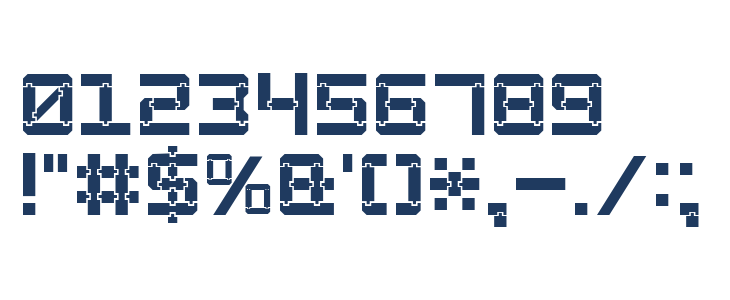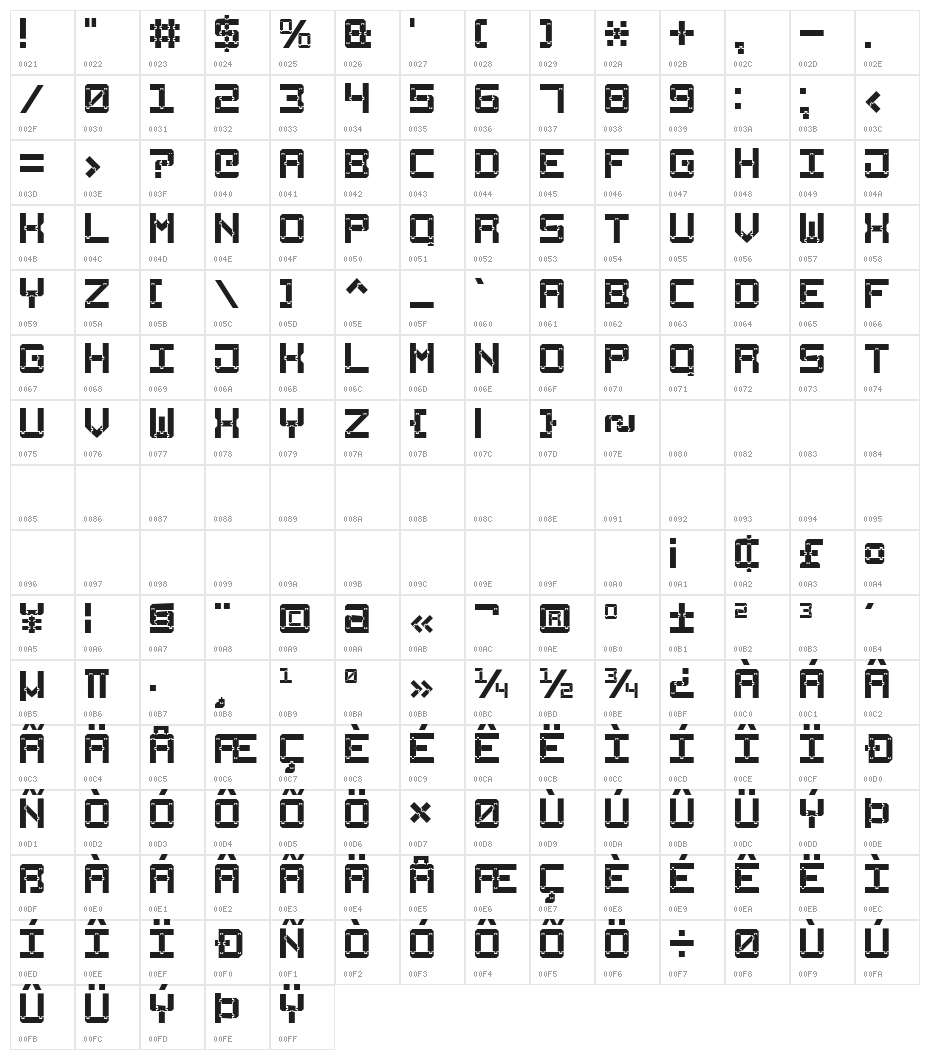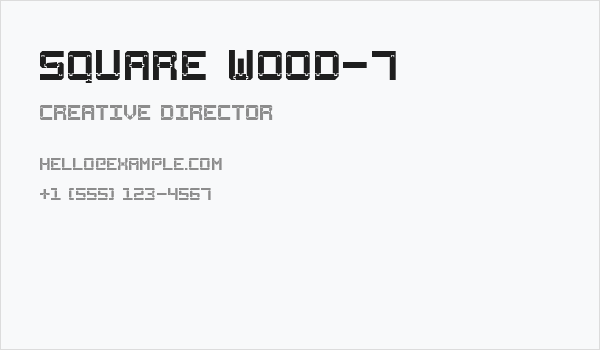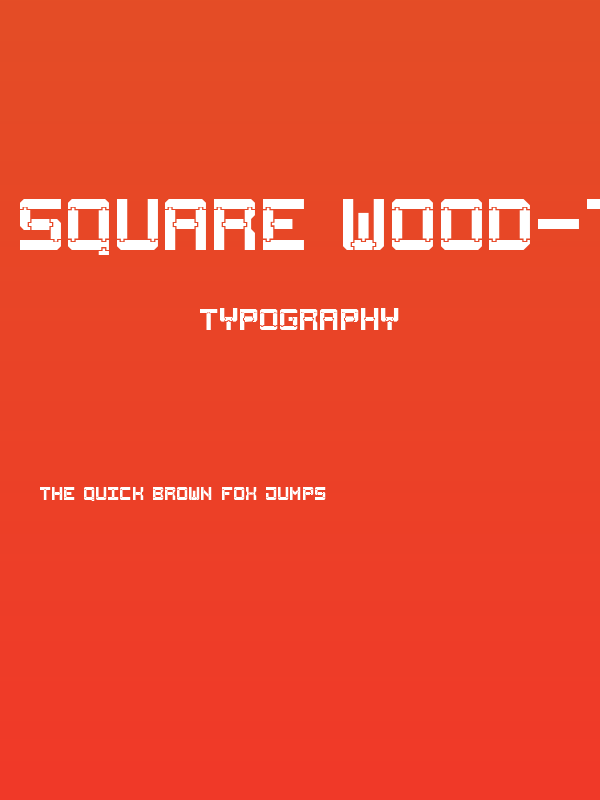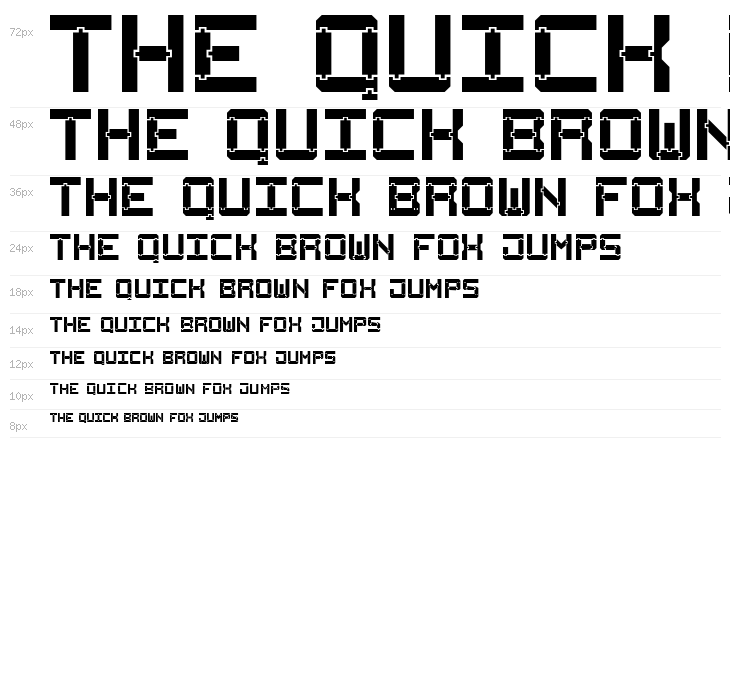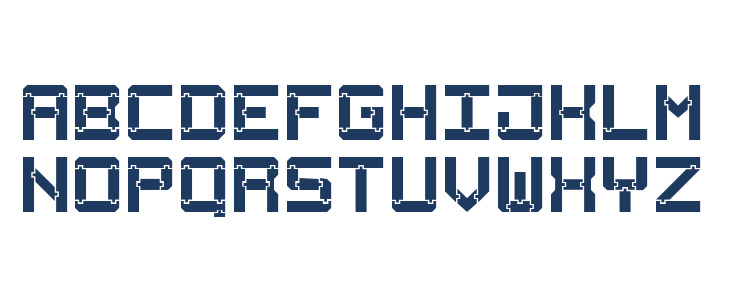
Square Wood-7 Font
Square Wood-7 Description
This font features a bold, geometric design with a distinctly modern and industrial feel. The characters are constructed with a square, block-like structure, incorporating unique cut-out details that add a mechanical aesthetic. The uppercase and lowercase letters maintain a consistent height, contributing to a uniform appearance. Numbers and special characters follow the same design principles, ensuring cohesion across all elements. The font's strong, angular lines and solid presence make it ideal for impactful visual statements.